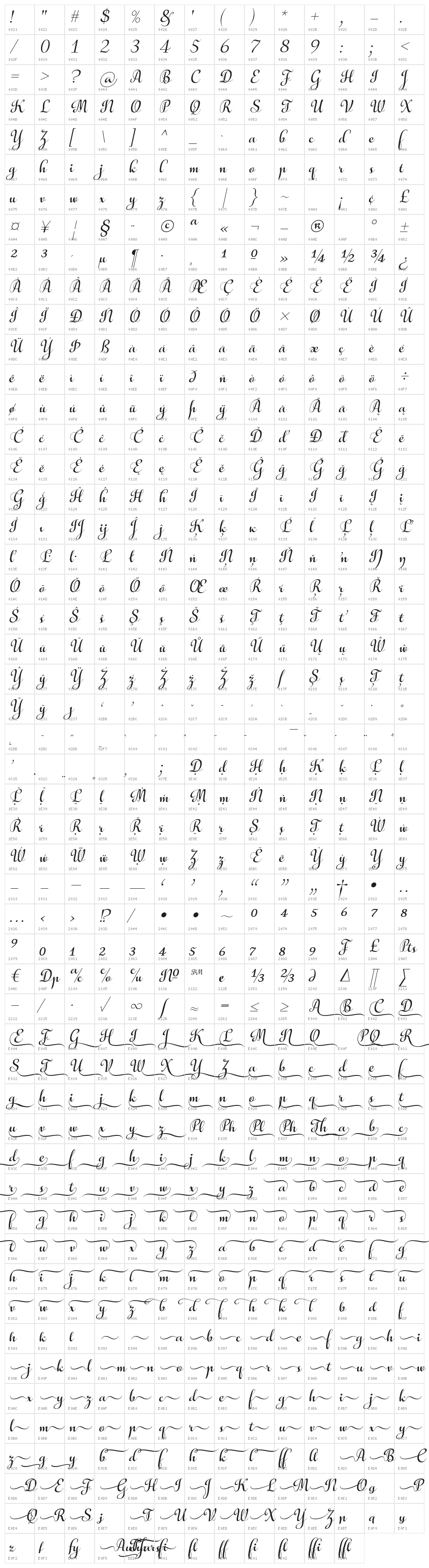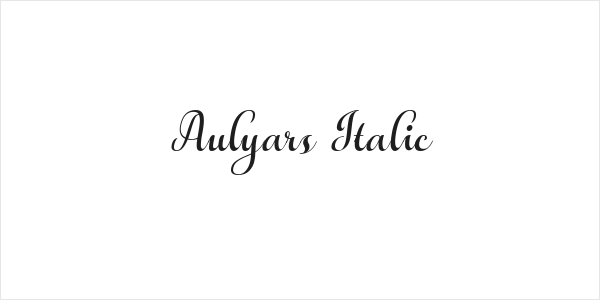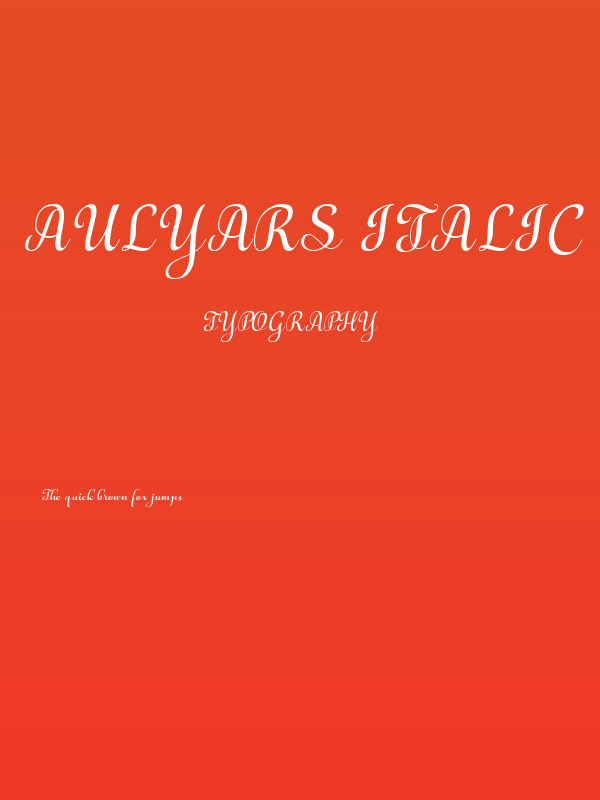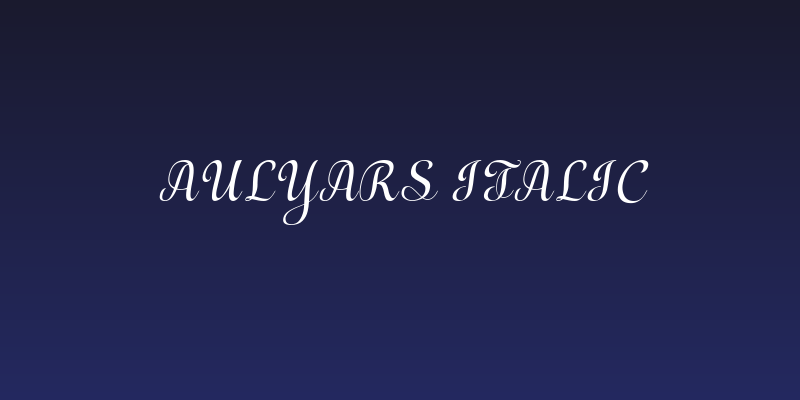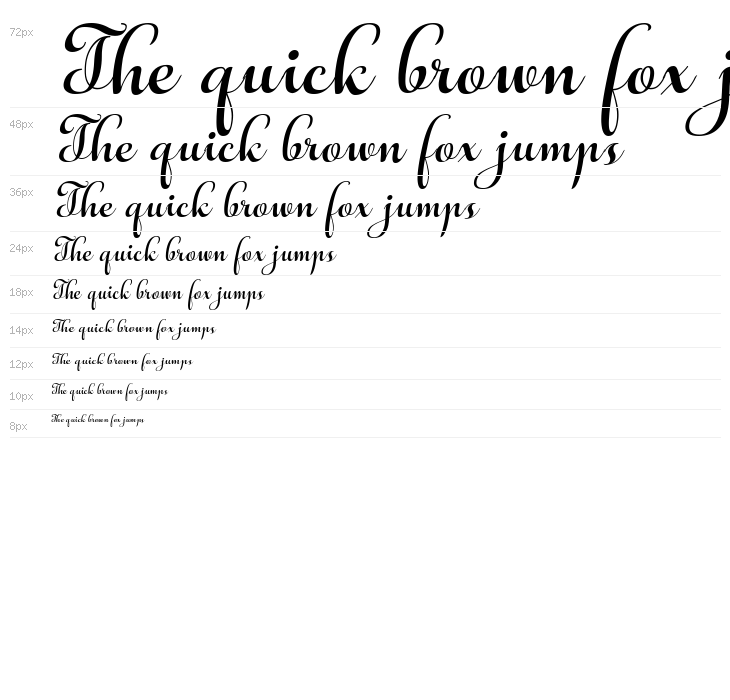
Aulyars Italic Font
Aulyars Italic Description
This font exudes elegance and sophistication with its flowing, cursive style. The characters are intricately designed with smooth curves and delicate strokes, giving it a refined and graceful appearance. The uppercase letters are particularly ornate, featuring elaborate swashes and loops that add a touch of flair. The lowercase letters maintain a consistent style, complementing the uppercase with their own subtle flourishes. The numerals are clear and stylish, matching the overall aesthetic. Special characters are thoughtfully crafted, ensuring they blend seamlessly with the rest of the font. This typeface is perfect for projects that require a touch of class and elegance.
| Overall Style | Elegant, Decorative |
| Use Case | Logos, Invitations, Editorial design |
| Proposed Projects | Ideal for wedding invitations, luxury branding, elegant packaging, and high-end editorial design. |